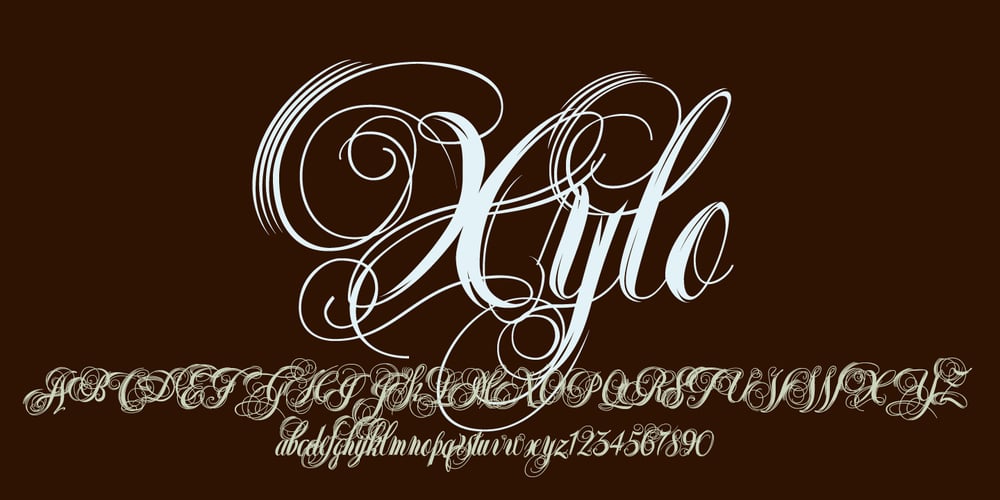
Xylo Script
Xylo Script font
Xylo Script Font Family was designed by Gert Wiescher and published by Wiescher Design. Xylo Script contains 1 styles and family package options. XyloScript is my first script with a woodcut look to it. Still, it is very elegant. Xylo is Greek and means “wood”. This script is another one I designed in the tradition of the 18th-century English calligrapher George Bickham and the 19th-century American calligrapher Platt Rogers Spencer. I like it, your very crafty Gert Wiescher BTW if your font manager tells you that the font is corrupted, just ignore that! This script is very complex and that’s causing some font managers to say the font is corrupted. I have tested it and it works fine!